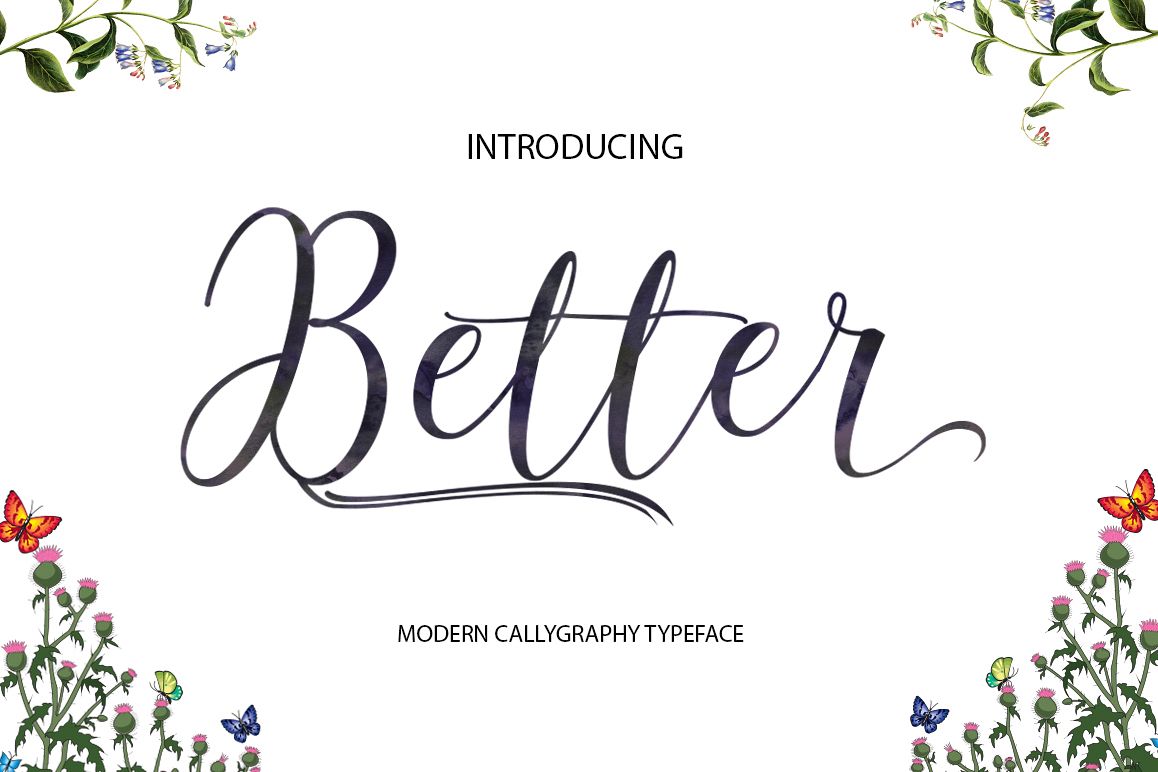
Better
better.
Better Modern Calligraphy. This font was designed by handwriting, and it has a modern and unique forms of calligraphy, the writing style is very natural.
The Features of this fonts is;
Standart ligatures
Stylistic Alternates
Contextual Alternates
Stylistic sets
swash